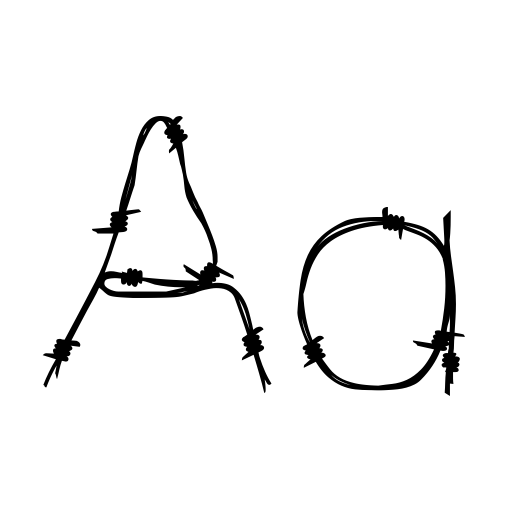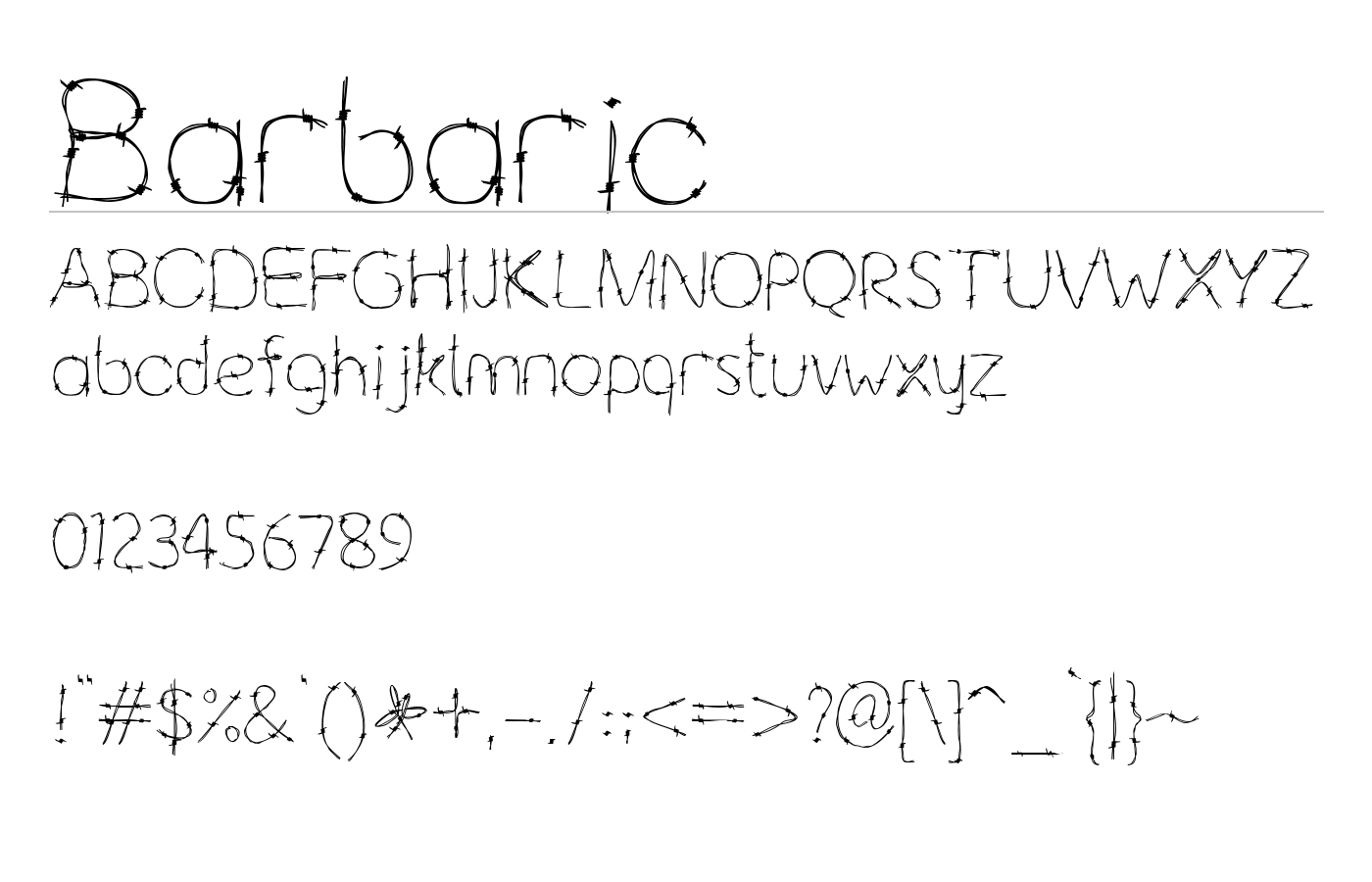
Barbaric Font is a quirky, handwritten sans serif typeface with a playful and rough edge that mimics barbed wire, giving it a raw, edgy, and slightly chaotic feel. Its thin strokes and irregular shapes make it perfect for designs that want to convey a rebellious, alternative, or rugged vibe, ideal for posters, logos, or branding in creative and unconventional spaces. This font stands out best in display use rather than body text due to its distinctive, decorative character.
Barbaric Font